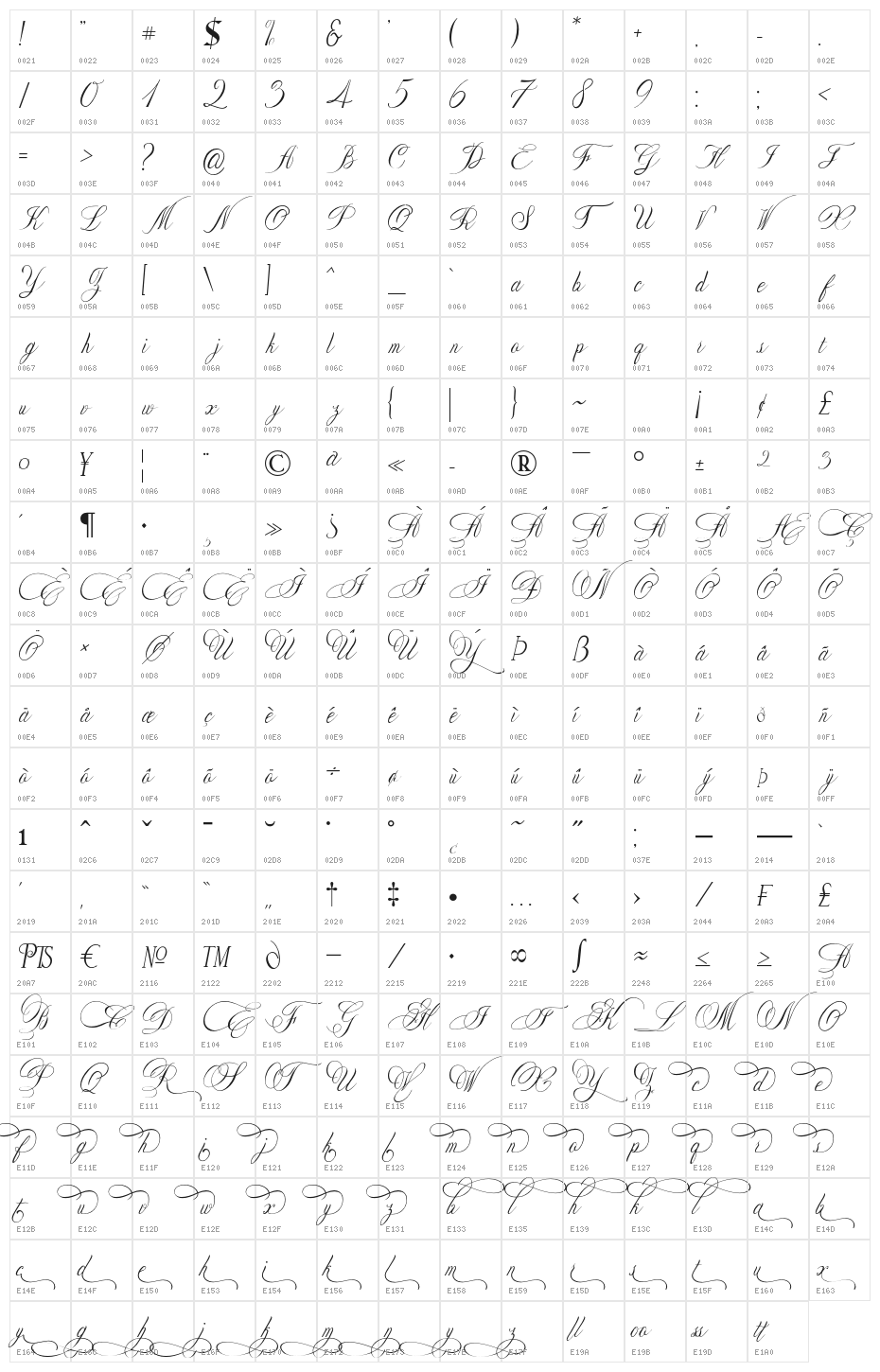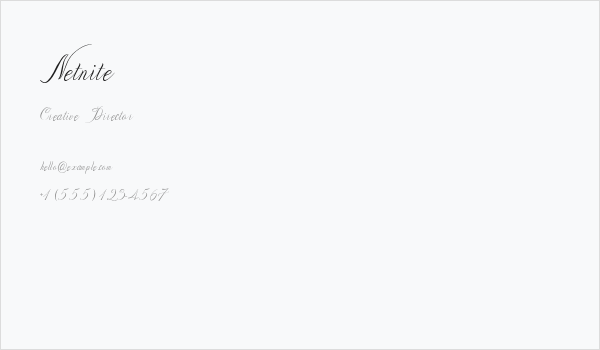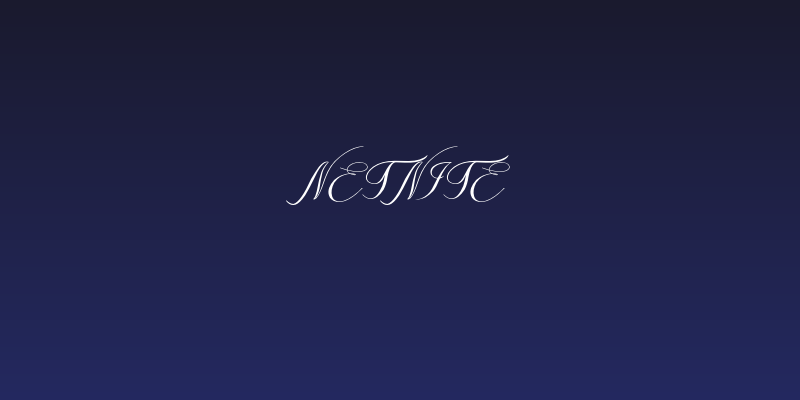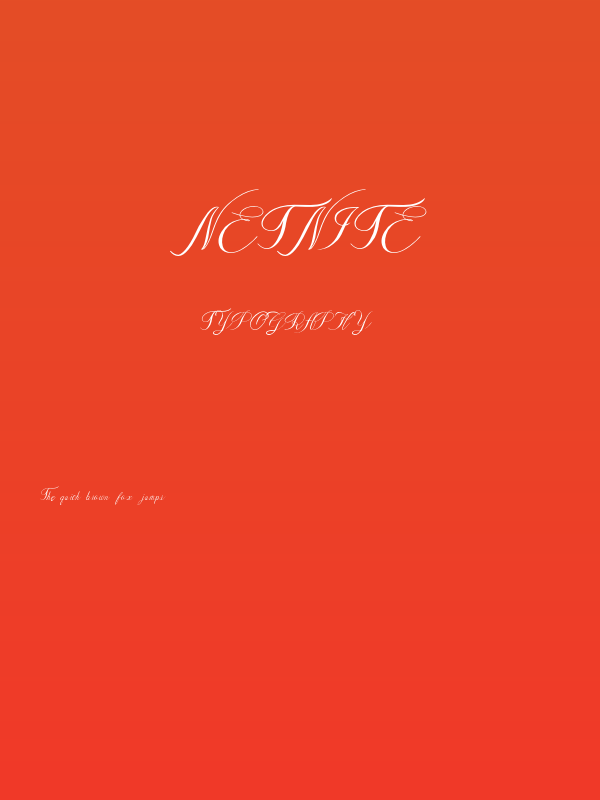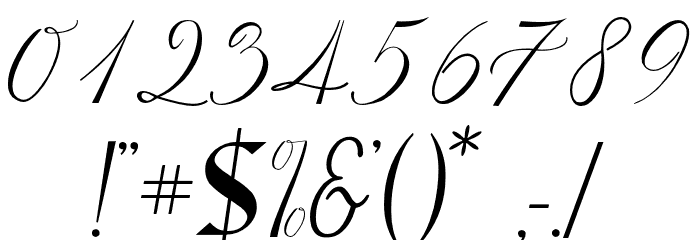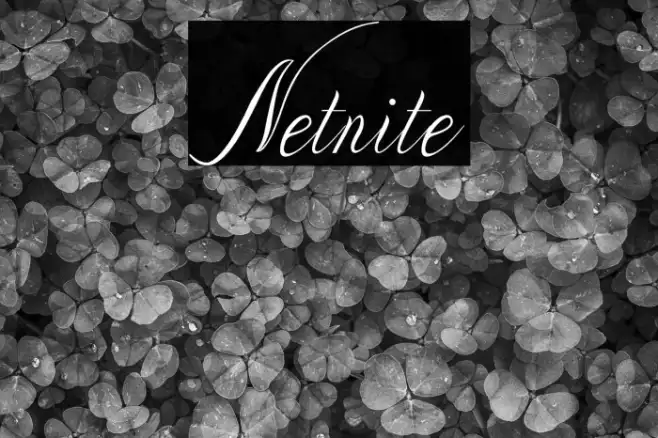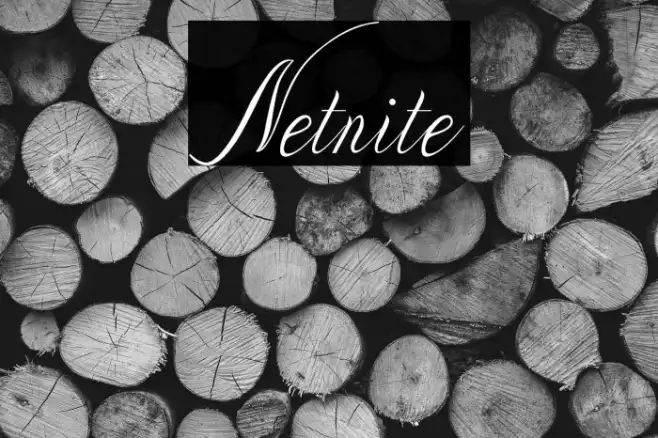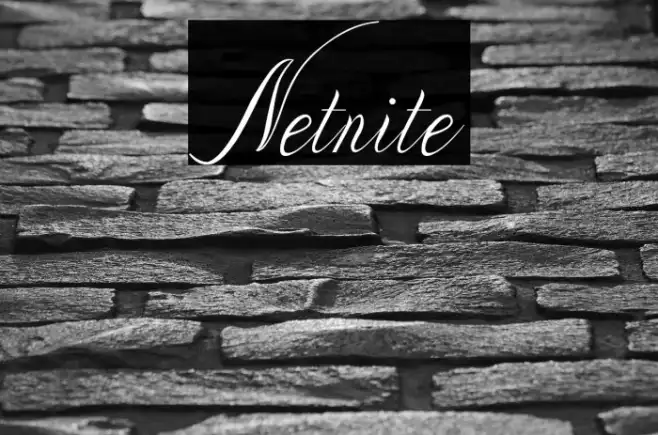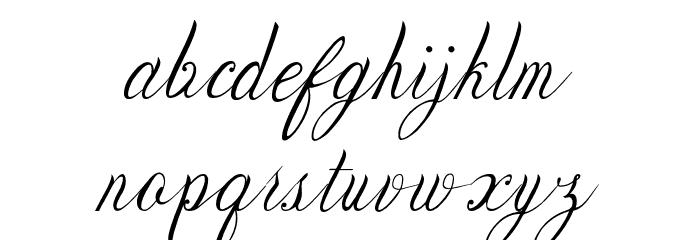
Netnite Font
Netnite Description
This elegant script font features a flowing, cursive style with high contrast between thick and thin strokes. The uppercase letters are particularly ornate, with sweeping flourishes that add a touch of sophistication and drama. The lowercase letters maintain a graceful continuity, making the font ideal for creating a sense of elegance and fluidity. The numerals and special characters are designed with the same attention to detail, ensuring a cohesive look across all elements. This font is perfect for projects that require a touch of class and refinement.
| Proposed Projects | Ideal for wedding invitations, luxury branding, elegant logos, and sophisticated packaging designs. |